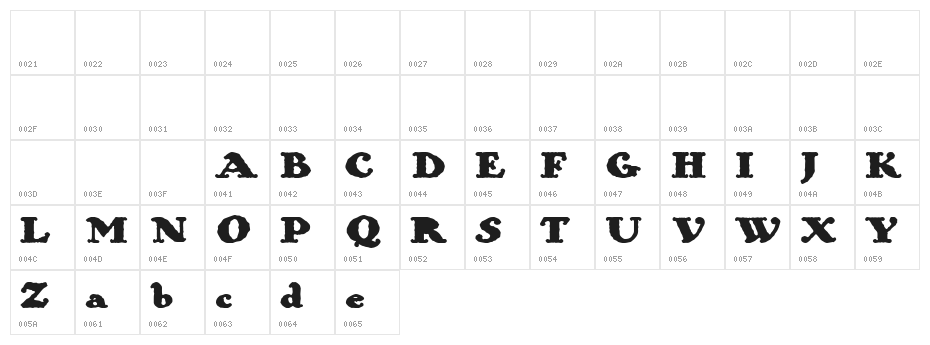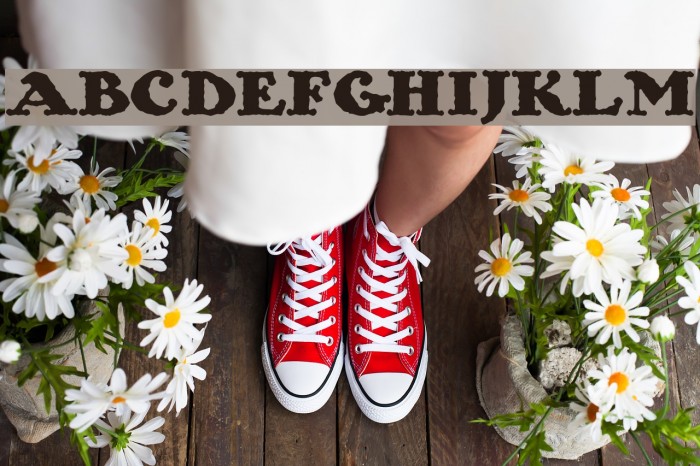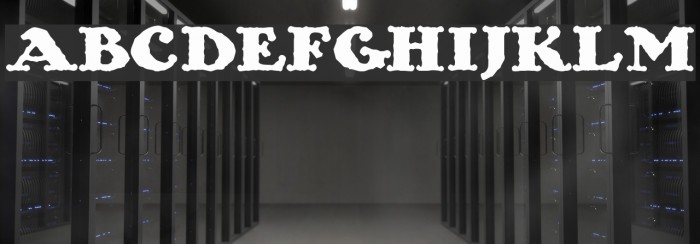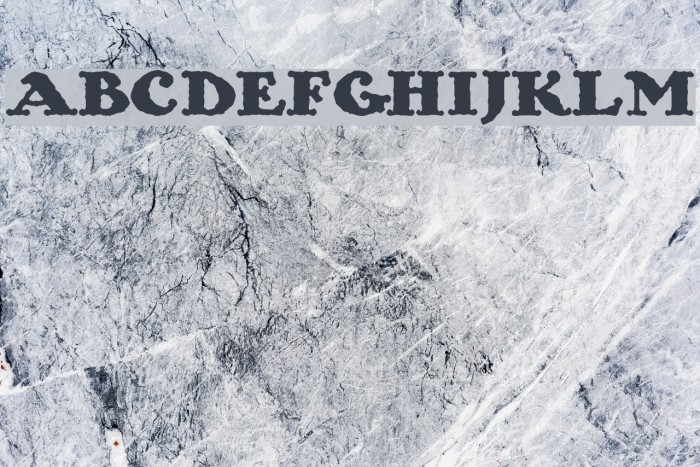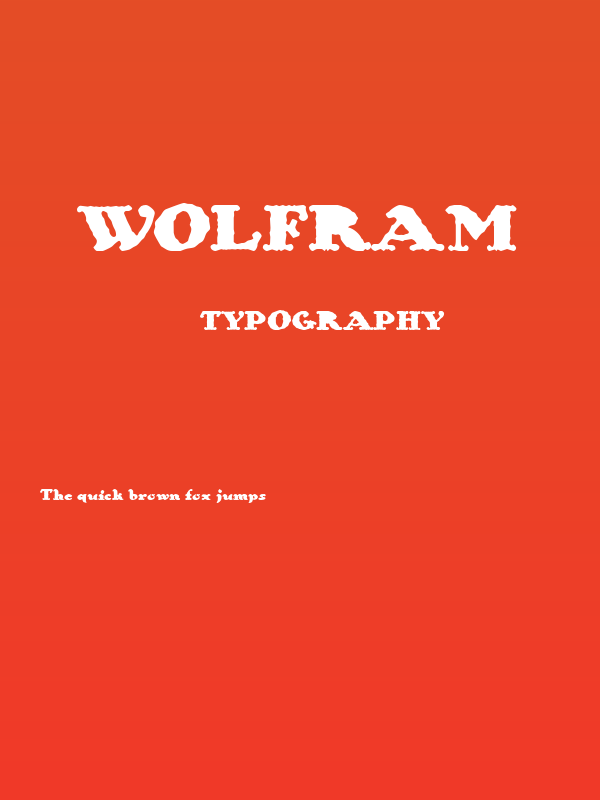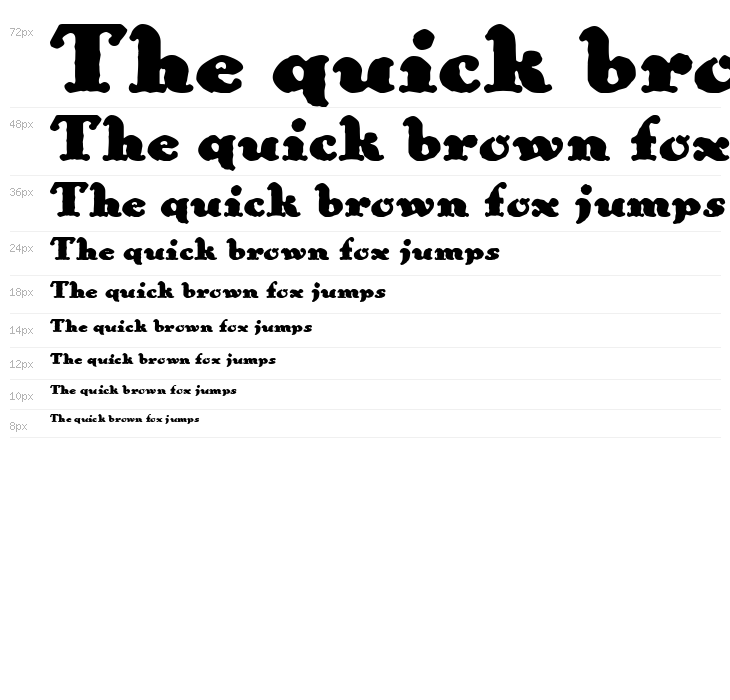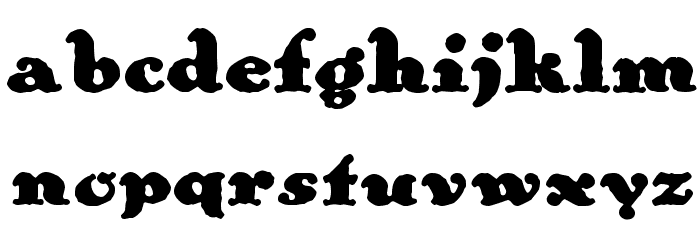
Wolfram Font
Wolfram Description
This font features a bold and decorative style with a vintage flair. The characters are heavily stylized, with thick strokes and unique, ornate detailing that gives each letter a distinct personality. The uppercase letters are particularly striking, with sharp serifs and intricate curves that add to the overall dramatic effect. The lowercase letters maintain this decorative theme, offering a cohesive look across the typeface. The numbers and special characters are equally bold and ornate, making them stand out in any design. This font is ideal for projects that require a strong visual impact and a touch of elegance.
| Proposed Projects | Ideal for vintage-themed posters, book covers, branding, and logo design. |